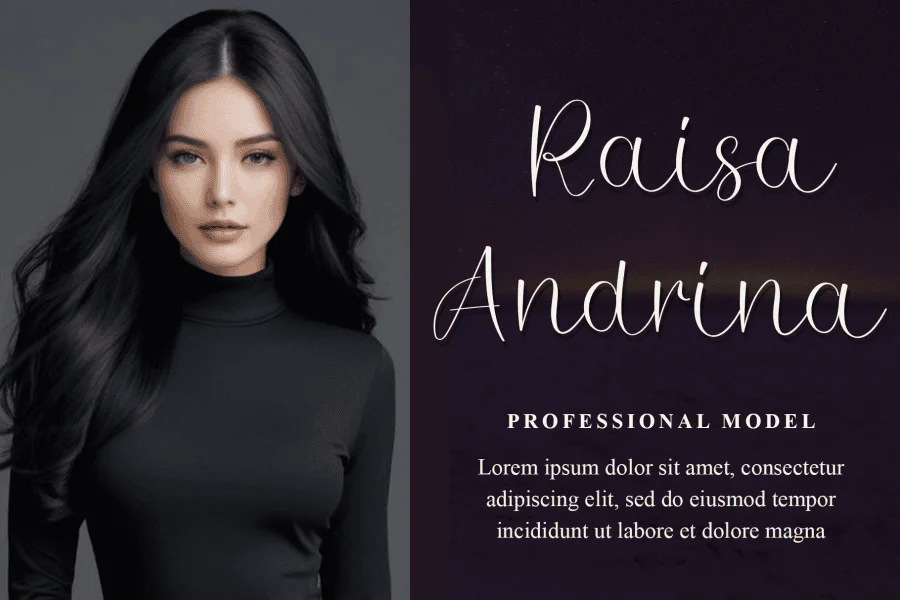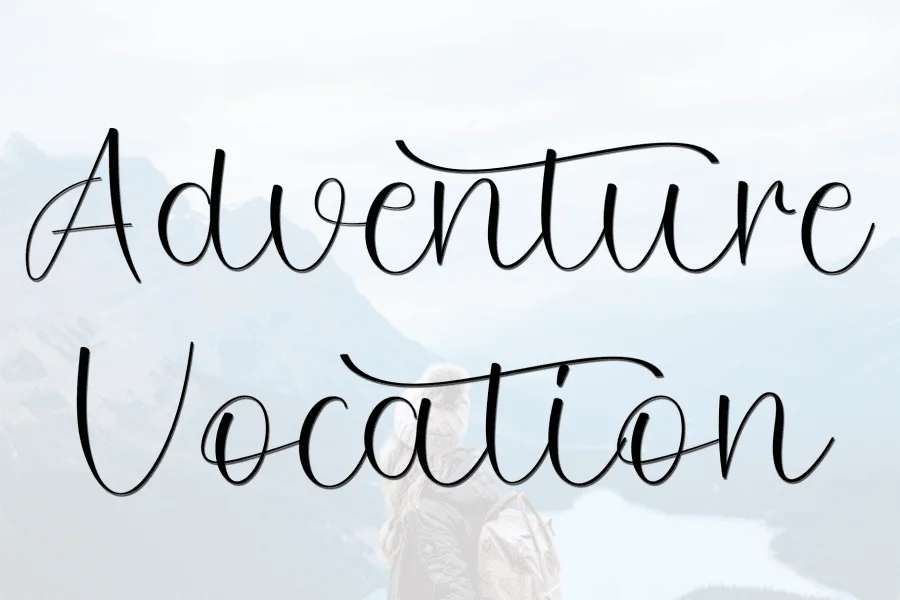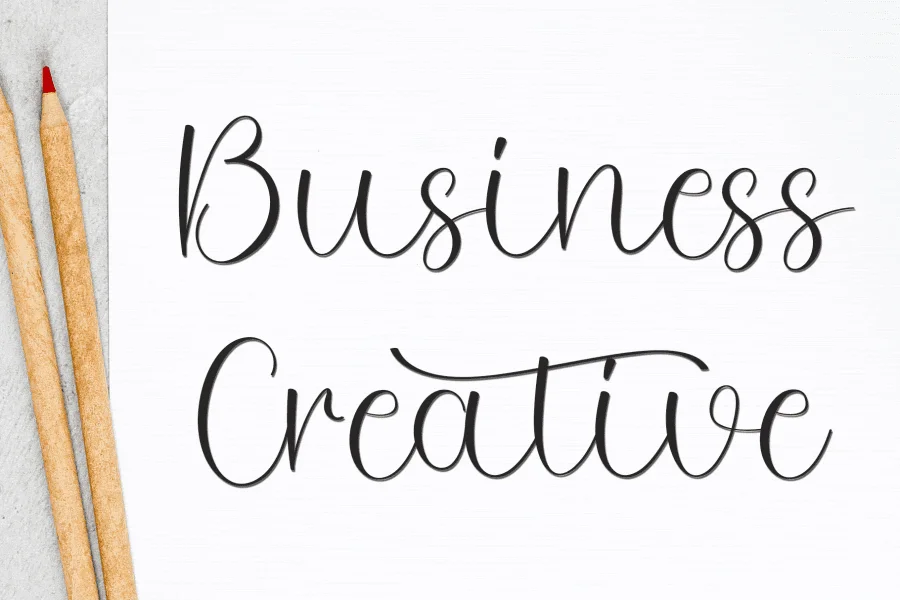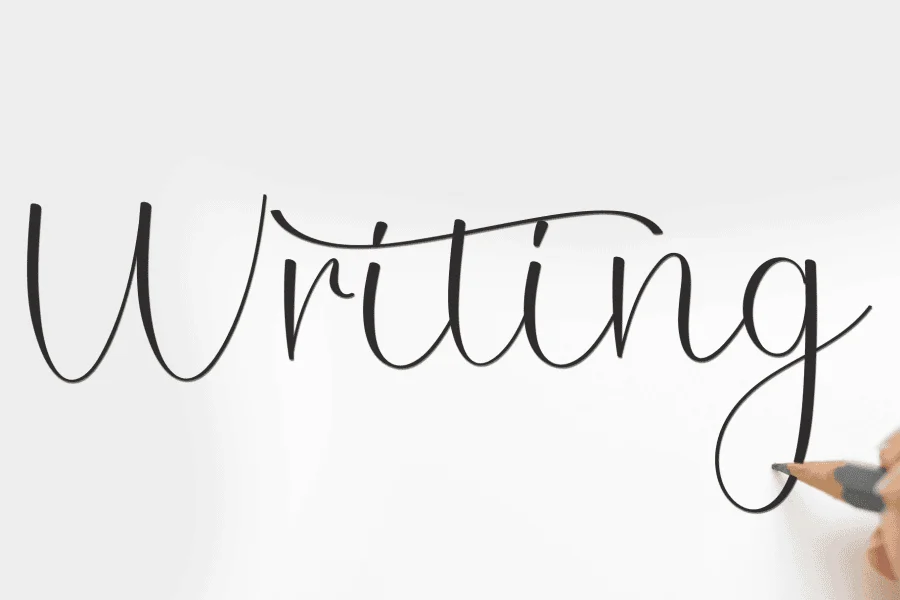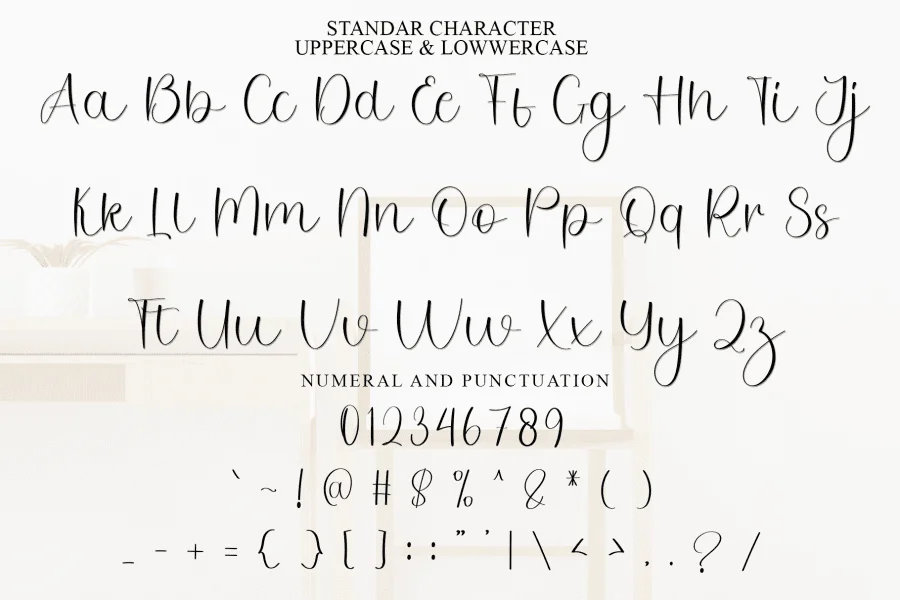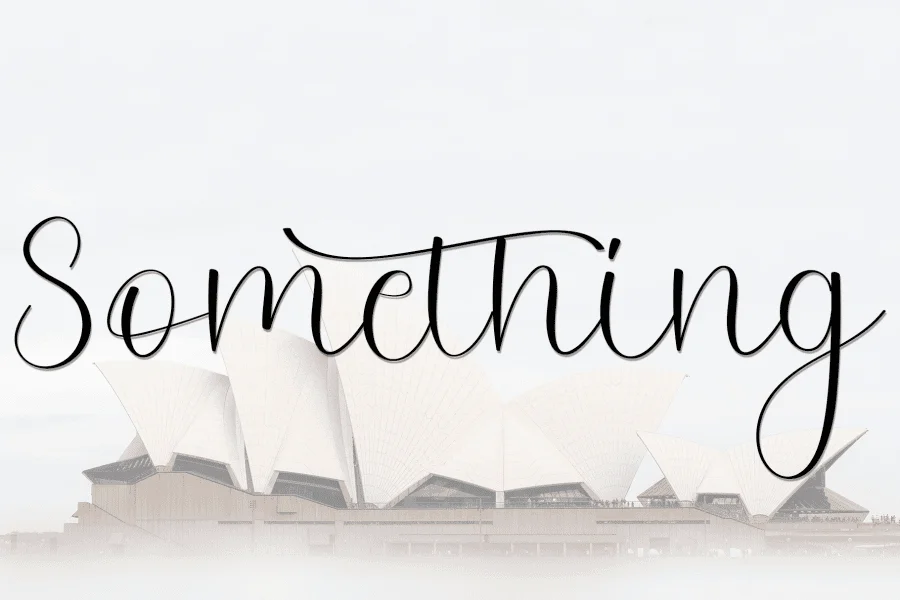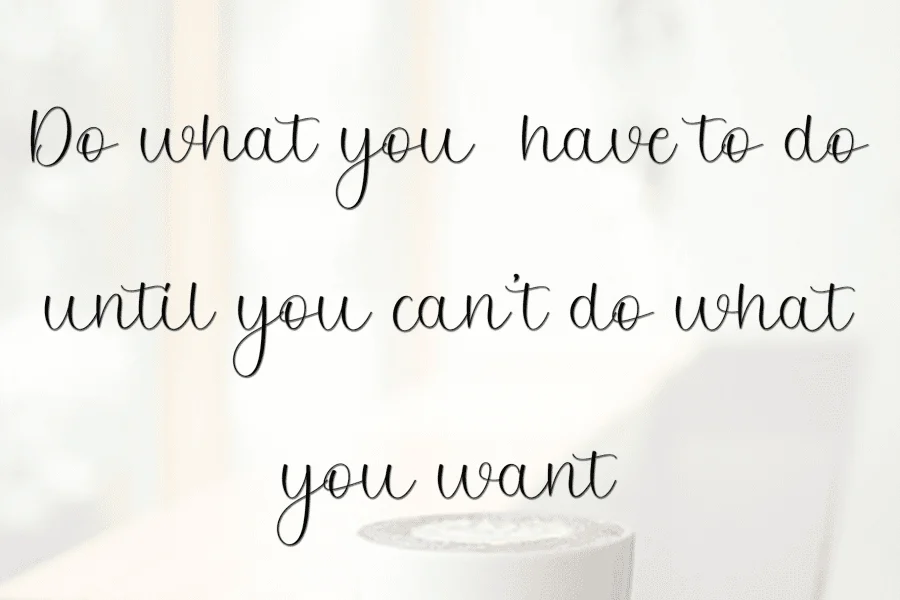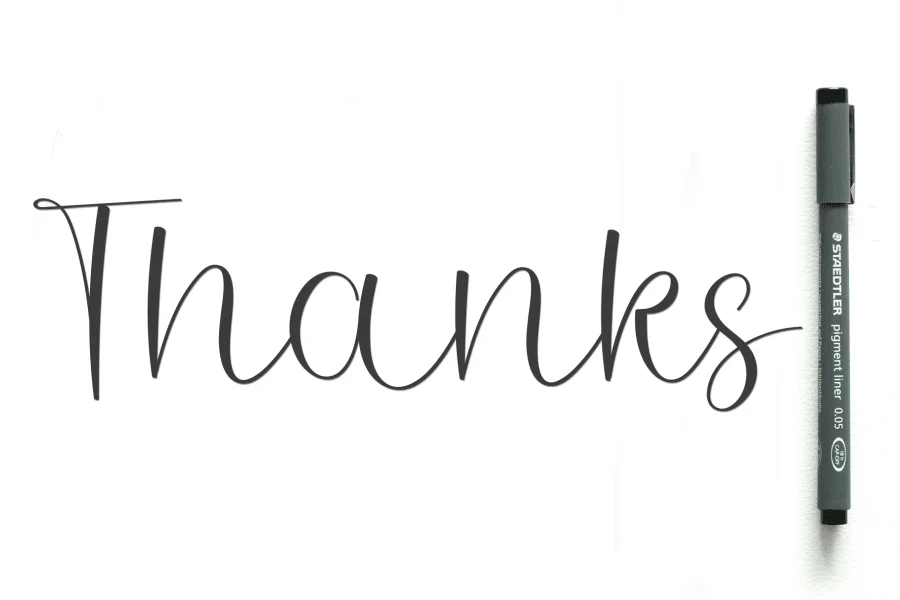
Adventure signature is a modern calligraphy script typeface that exudes an elegant, airy, and organic tone. Defined by its delicate, monolinear construction, the typeface features graceful, sweeping ascenders and descenders that mimic natural hand-drawn penmanship. Its rhythm is relaxed yet refined, characterized by generous spacing and fluid, looping connections that create a light and breezy visual texture. The overall structure balances a casual, handwritten feel with a sophisticated, artistic poise.
This typeface is perfectly suited for projects requiring a personal, high-end touch, such as intimate wedding stationery, luxury lifestyle branding, and elegant editorial layouts. Its delicate strokes make it an excellent choice for fashion photography overlays, creative portfolio headers, and boutique product packaging where a sense of effortless sophistication is desired.